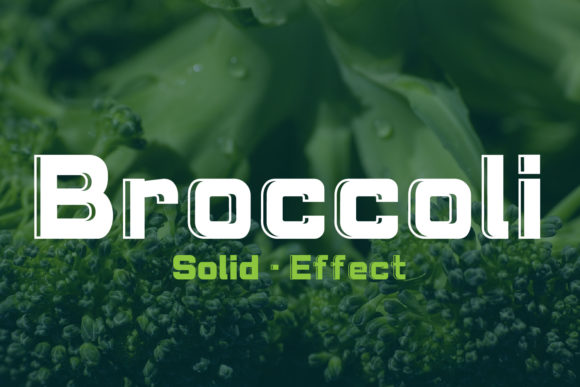
Feast your eyes on Brocolli Font, a robust and audacious sans serif font that is bound to make your culinary creations burst with flavor! Crafted by the ingenious da_only_aan, this extraordinary font family will transform your food blog into a mouthwatering masterpiece!
With its solid and confident strokes, Brocolli Font exudes a sense of authority that will command attention and leave your readers craving more. Its unique and captivating design adds a touch of whimsy and playfulness, inviting them to explore the delectable dishes you have to offer.
Step into a culinary adventure like no other, where every recipe, review, and food story is brought to life with the tantalizing allure of Brocolli Font. Its distinct character will make your words dance off the screen, engaging your readers and leaving them hungry for more.
Brocolli Font is not just a font; it's an experience that will elevate your food blog to new heights. Its versatility allows you to create stunning headers that sizzle, eye-catching captions that tantalize, and delectable body text that will leave your readers salivating.
Whether you're a seasoned food blogger or just starting, Brocolli Font is the secret ingredient you need to make your content shine. It's the perfect choice for showcasing your culinary expertise, sharing your passion for food, and building a loyal following of hungry readers.
Don't let your food blog be bland and ordinary. Embark on a culinary journey with Brocolli Font and let your words ignite the senses and satisfy the cravings of your readers. Download Brocolli Font today and transform your food blog into a feast for the eyes and a delight for the taste buds!